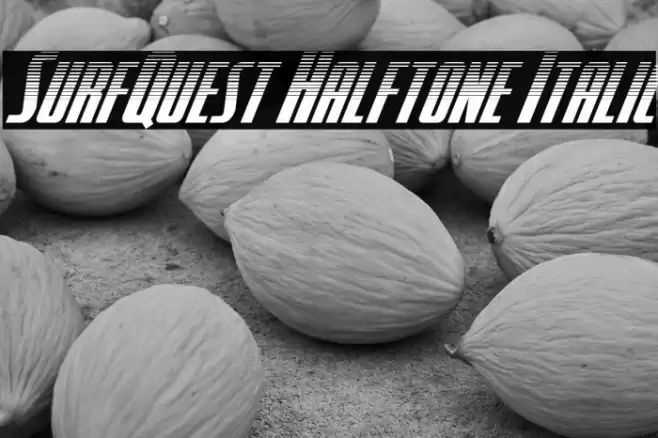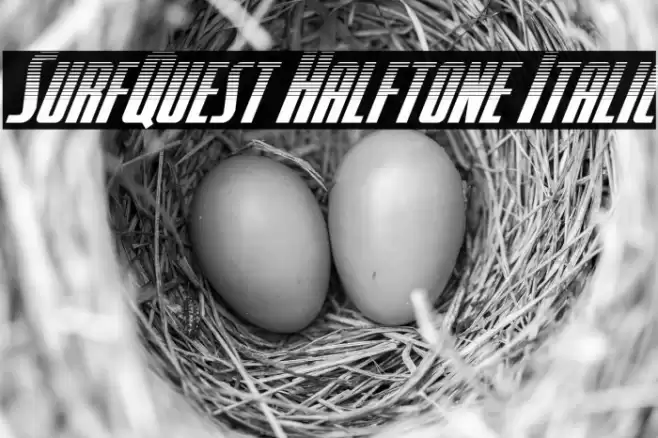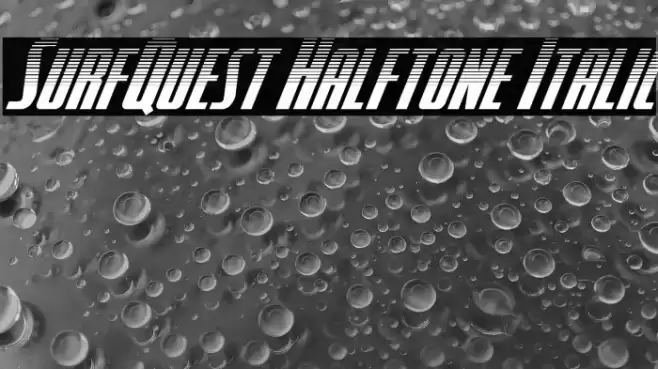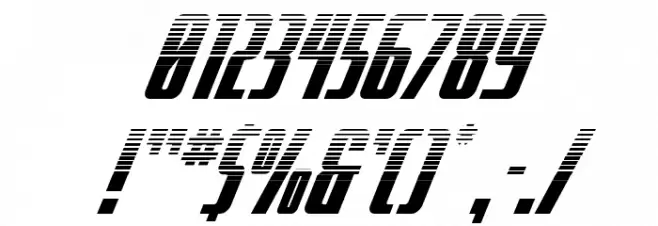
SurfQuest Halftone Italic Font
SurfQuest Halftone Italic Description
This font features a dynamic and modern design with a halftone effect that gives it a sense of movement and energy. The italicized style adds a sleek, forward-leaning appearance, enhancing its contemporary feel. The characters are bold and impactful, with a distinct slant that suggests speed and agility. The halftone pattern creates a gradient effect, adding depth and texture to the letters. This font is ideal for projects that require a futuristic or sporty aesthetic, making it suitable for branding, advertising, and digital media.
A bold, italicized font with a halftone effect, perfect for modern and dynamic designs from Regular fonts.
- Proposed Projects: Ideal for sports branding, futuristic advertisements, digital media, and dynamic posters.